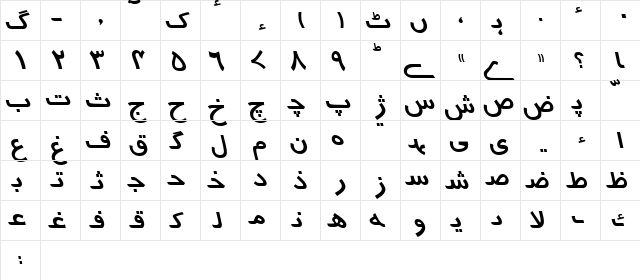
Urdu7TypewriterSSK Italic Font Preview
Urdu7TypewriterSSK Italic
Design Context for Urdu7TypewriterSSK Typeface
Urdu7TypewriterSSK uses fixed-width spacing throughout, giving it the structured, systematic character associated with coding environments and technical documentation. The dynamic lean of this cut emphasises speed and emphasis in any layout.